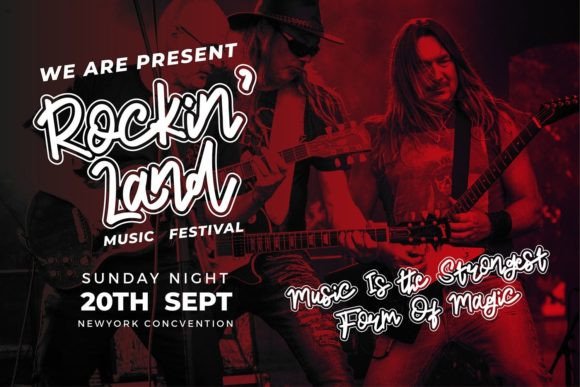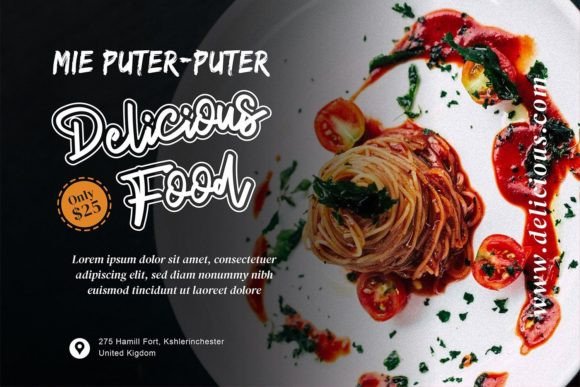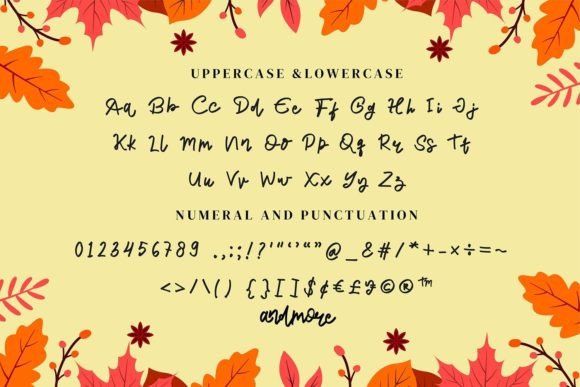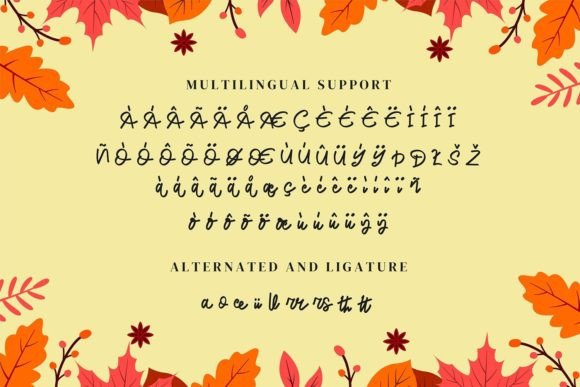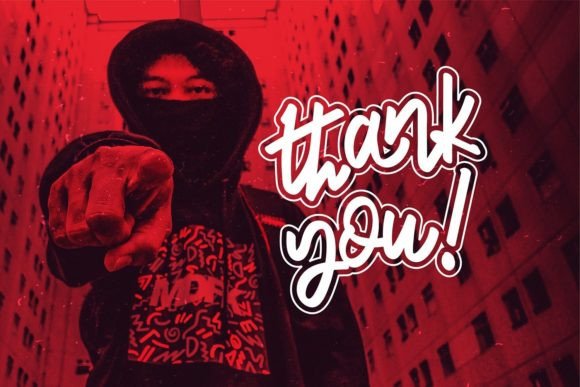
Laylade Font
About Laylade Font
Laylade, a modern and trendy script font, introduces beautiful and well-balanced characters, making it a versatile choice for a wide range of design projects. Whether you’re working on branding, packaging, logos, social media posts, or any creative endeavor, Laylade is crafted to breathe life into your ideas.
The font’s modern and trendy style aligns with contemporary design aesthetics, making it a suitable choice for projects that seek a fresh and up-to-date look. Its well-crafted characters contribute to a visually appealing and harmonious overall design.
For branding projects, Laylade can play a key role in creating a distinctive and memorable visual identity. Its trendy script adds a modern touch to logos and packaging, making products and brands stand out in a competitive market.
Laylade’s versatility extends to various design applications, including social media posts, where its modern and trendy script can enhance the visual impact of your content. The font adapts seamlessly to different creative ideas, adding a touch of vibrancy and contemporary style.
Whether used for print or digital media, Laylade is designed to elevate your most creative ideas. Witness how it brings a modern and trendy flair to your designs, turning them into dynamic and visually engaging creations.
Incorporate Laylade into your design projects and discover how its well-balanced characters and modern style make your ideas come alive. Whether you’re a professional designer or working on personal projects, Laylade is tailored to enhance your creative endeavors with its contemporary and trendy script.